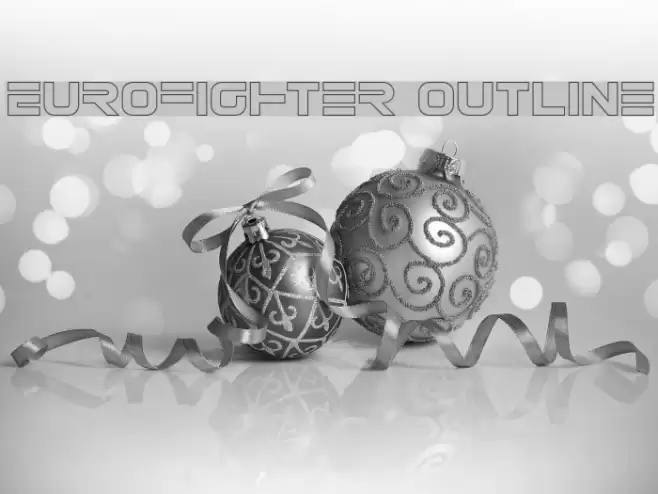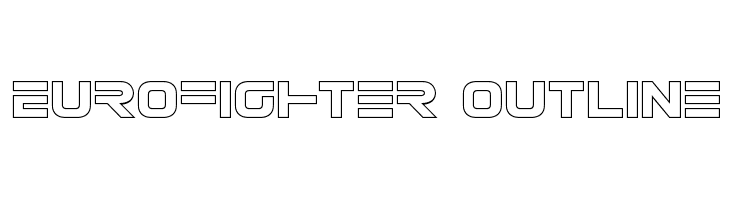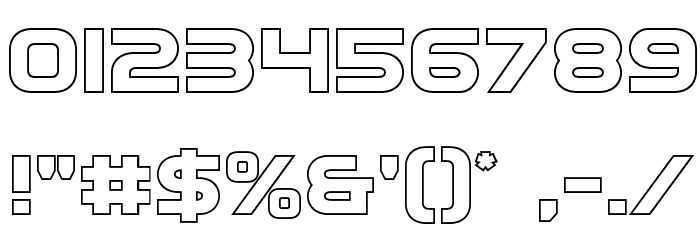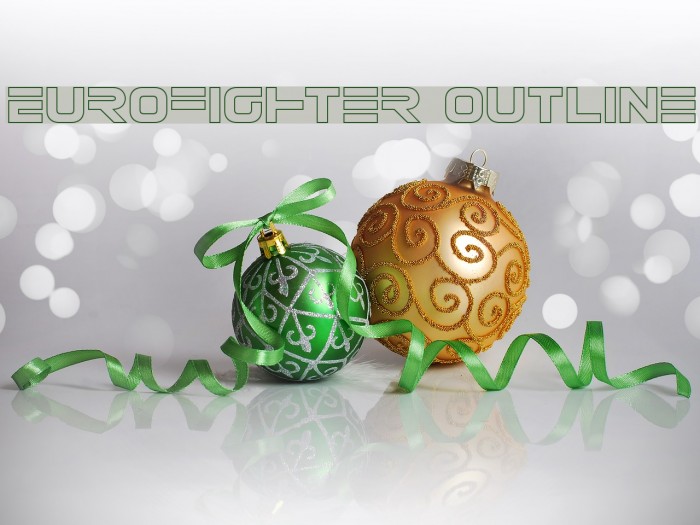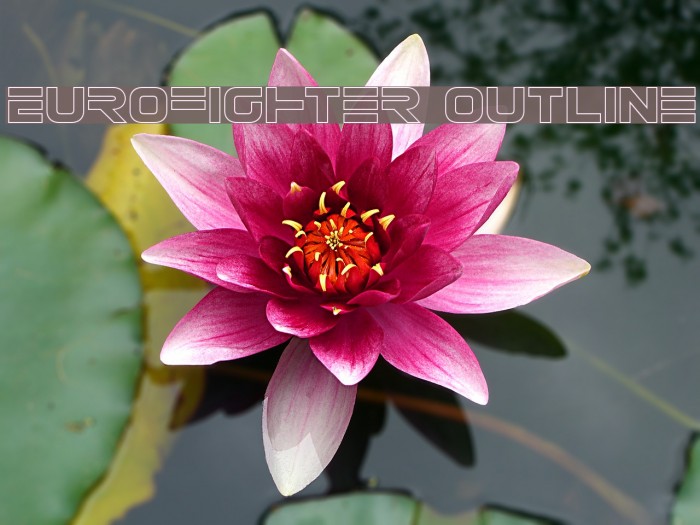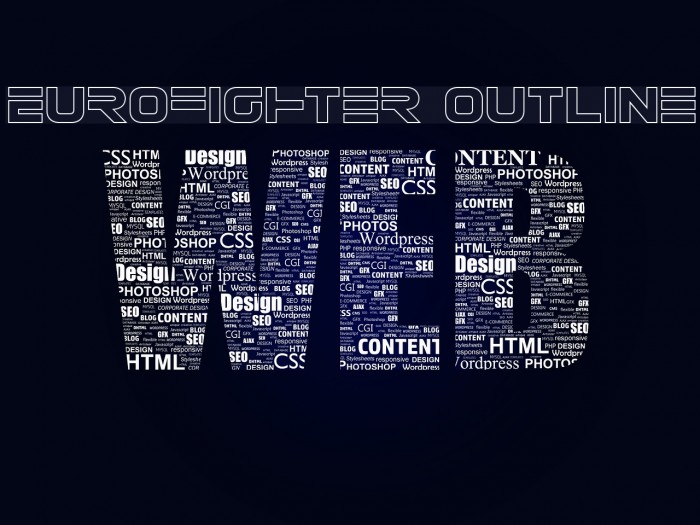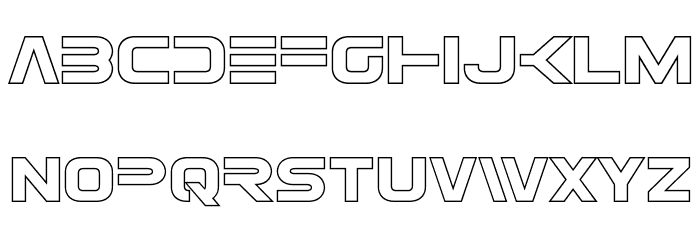
Eurofighter Outline Font
Eurofighter Outline Description
This font features a bold, geometric outline style that gives it a futuristic and technical appearance. The characters are constructed with clean, sharp lines and angles, creating a sense of precision and modernity. The uppercase letters are uniform in height, while the lowercase letters maintain a similar structure, enhancing readability. Numbers and special characters are designed with the same attention to detail, ensuring consistency across all glyphs. The overall design is striking and impactful, making it ideal for projects that require a strong visual presence.
A bold, geometric outline font with a futuristic and technical look from Uncategorized fonts.
- Proposed Projects: Ideal for technology branding, sci-fi themed designs, video game titles, and modern advertising.